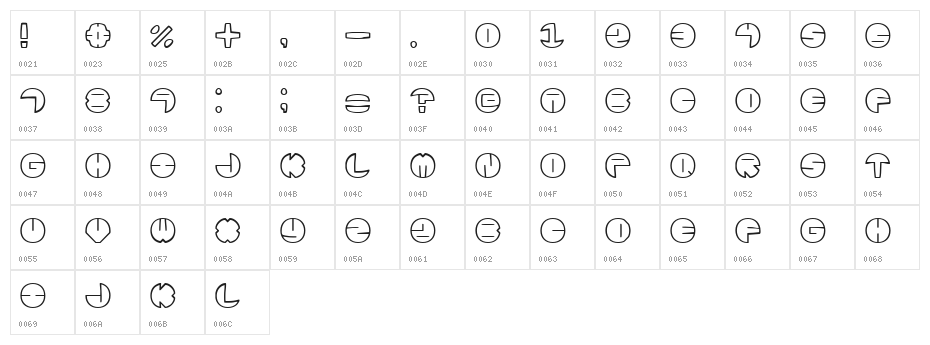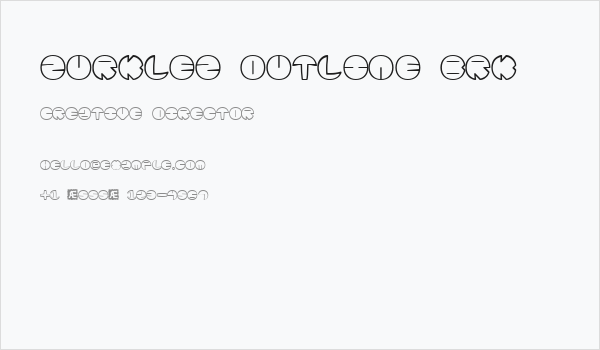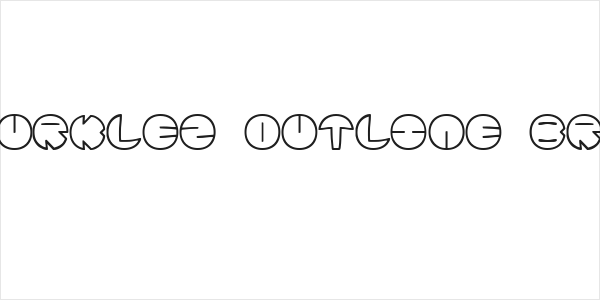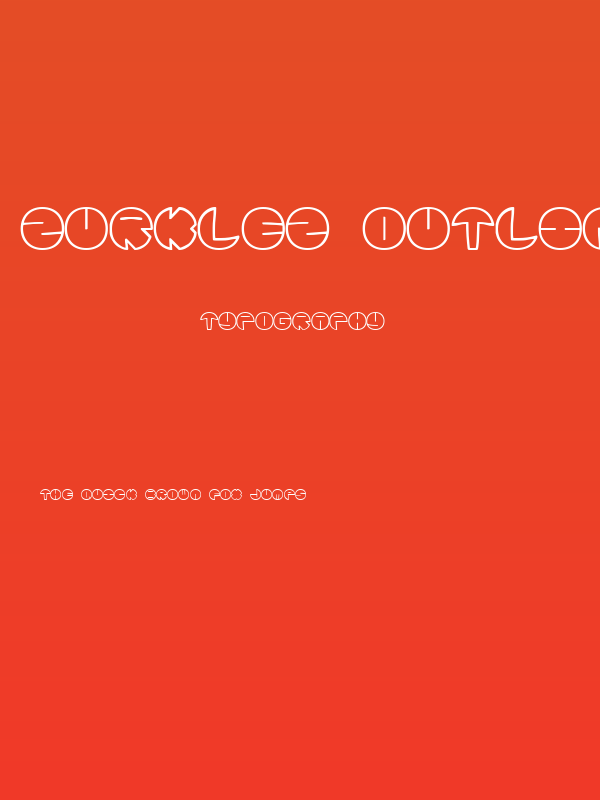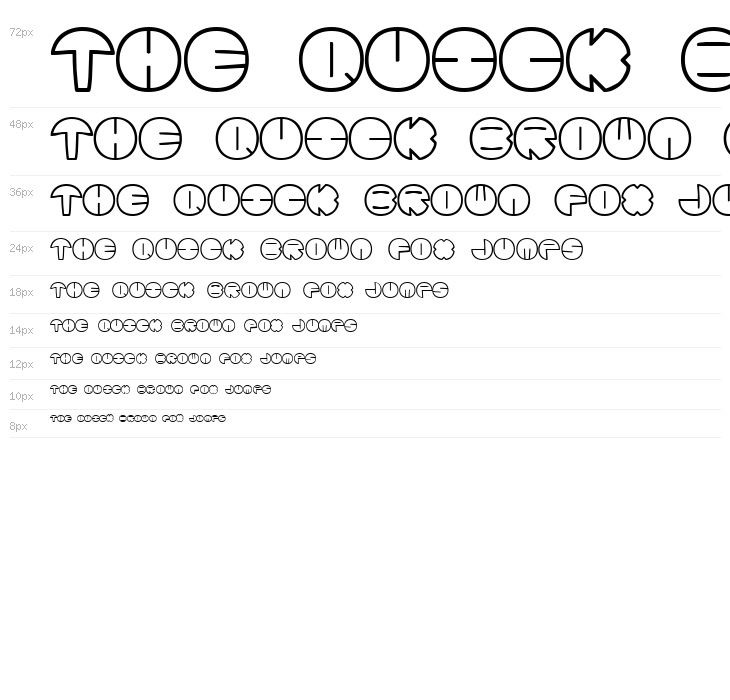
Zurklez Outline BRK Font
Zurklez Outline BRK Description
This font features a unique outline style with bold, rounded characters that are both playful and futuristic. Each letter is enclosed within a circular or oval shape, giving it a distinctive appearance. The uppercase and lowercase letters maintain a consistent style, with clean lines and geometric forms. The numbers and special characters follow the same design principles, ensuring a cohesive look across all elements. This font's outline nature makes it stand out, ideal for eye-catching designs.
| Proposed Projects | Ideal for logos, posters, and any design requiring a standout, modern look. |